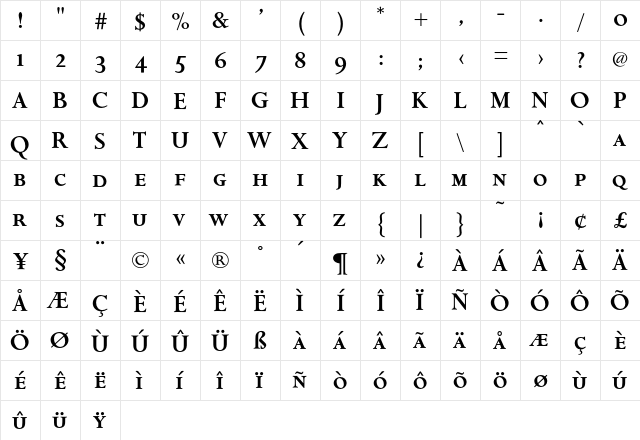
Aries BoldCapSmallCap
Design Context for Aries Typeface
Aries is a composed and adaptable typeface that performs quietly and consistently across a wide range of design contexts. Its bold stroke weight gives it real presence on the page.
Pro Tip: Pair Aries with a font of contrasting weight or personality to build a more expressive typographic hierarchy.